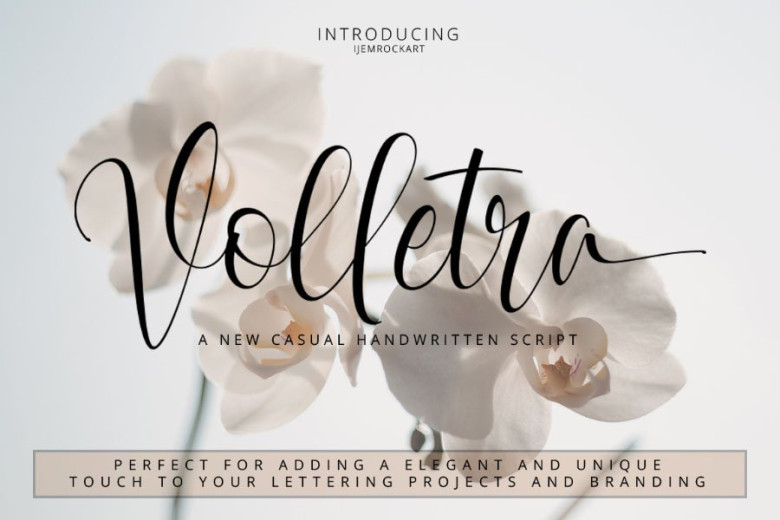
Volletra Script Font
Befonts always want to introduce you to the highest quality fonts, and today is a new casual handwritten script font. Introducing Volletra Script Font! Volletra Script designed and shared by Pathero Studio and IjemRockArt . It appears incredible within wedding and event invitations, printouts, logos and branding, apparel, and everything in between. As a result, making life a whole lot easier for you to switch between all of the wonderful letter combinations to truly bring your work to life!